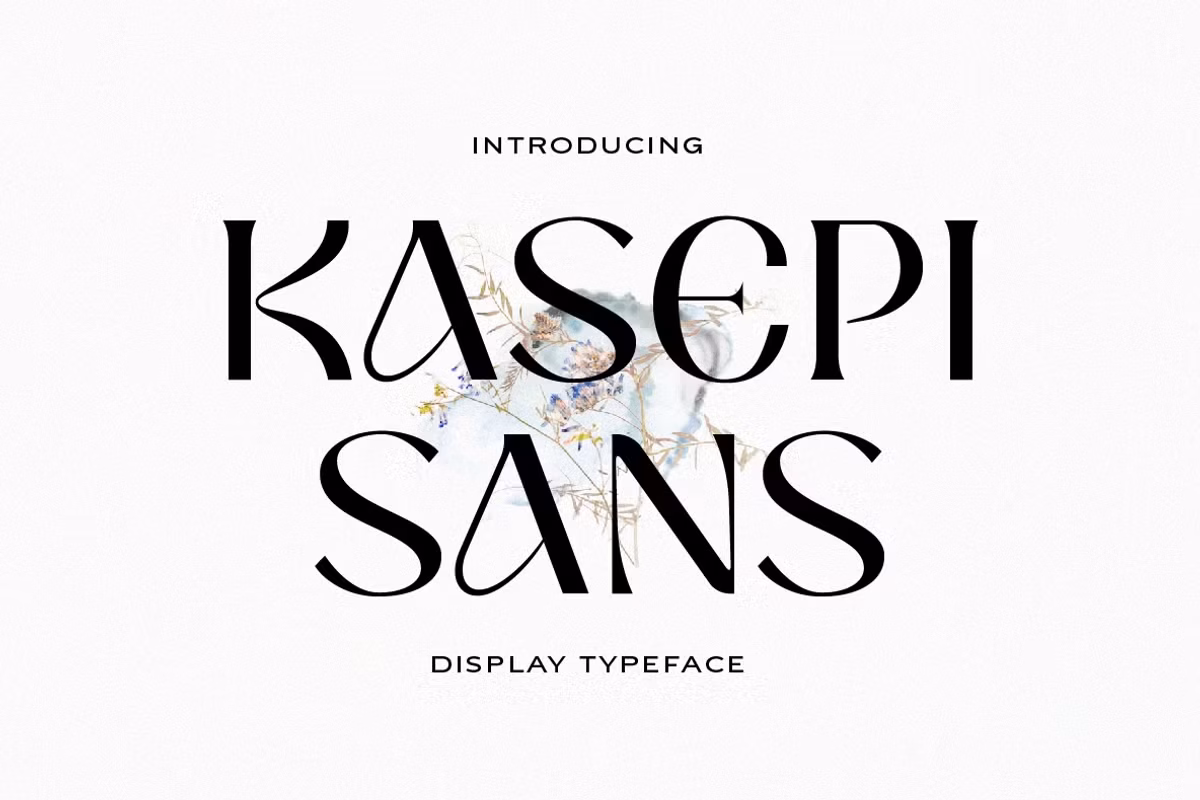
The Kasepi Sans Display Font Free Download is a bold and modern sans-serif typeface designed for high-impact display use. Perfect for headlines, posters, branding, packaging, and social media graphics, this font combines clean lines with a contemporary feel, making it a great choice for a variety of creative projects.
With its strong presence and geometric shapes, Kasepi Sans stands out in both large and small sizes. It includes uppercase and lowercase letters, numbers, punctuation, and multilingual support, ensuring versatility and readability across different design applications.
Make a bold statement with the Kasepi Sans Display Font Free Download. Try it today and elevate your designs with a modern and sleek aesthetic!